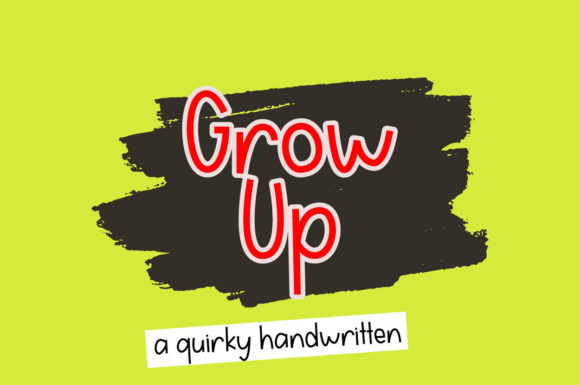
Welcome to the world of Grow Up Font - where creativity flourishes, and uniqueness takes center stage!
Immerse yourself in the captivating aura of Grow Up Font, a masterfully crafted script font that exudes warmth and personality. Let your imagination soar as you explore the endless possibilities it presents, allowing you to create captivating designs that leave a lasting impression.
Crafted with meticulous attention to detail by the renowned Soegih Artwork, Grow Up Font embodies the essence of artistry and precision. Its enchanting strokes dance across the page, inviting you to embark on a journey of self-expression. Unleash your creativity and let Grow Up Font guide you towards crafting designs that are both visually striking and deeply meaningful.
Picture this: a business sign adorned with the alluring curves of Grow Up Font. Passersby are drawn in by its charm, captivated by the effortless elegance it exudes. Your business name becomes an unforgettable beacon, inviting potential customers to step inside and discover the treasures that await them.
Envision wedding invitations graced with the delicate touch of Grow Up Font. Each letter becomes a testament to love and commitment, as if whispering secrets of a beautiful journey that lies ahead. Your guests will feel a sense of anticipation and joy as they hold these invitations in their hands, eagerly awaiting the celebration of a lifetime.
Step into the realm of branding and marketing, where Grow Up Font reigns supreme. Its captivating aura transforms logos, brochures, and advertisements into works of art. Your brand identity takes on a life of its own, attracting the attention of your target audience and leaving an indelible mark on their minds.
But Grow Up Font's versatility doesn't end there. Dive into the world of social media graphics and let Grow Up Font elevate your posts, stories, and reels to new heights. Create eye-catching content that resonates with your followers, leaving them in awe of your creativity and originality.
With Grow Up Font by your side, you unlock the power to transform the ordinary into the extraordinary. Its magic knows no bounds, whether you're crafting stunning posters, designing heartfelt greeting cards, or embarking on any other creative project that sets your heart ablaze.
Join the ranks of those who dare to be different and embrace the beauty of Grow Up Font. Let your imagination run wild and create designs that speak to the soul, leaving a legacy of brilliance that will be cherished for generations to come.